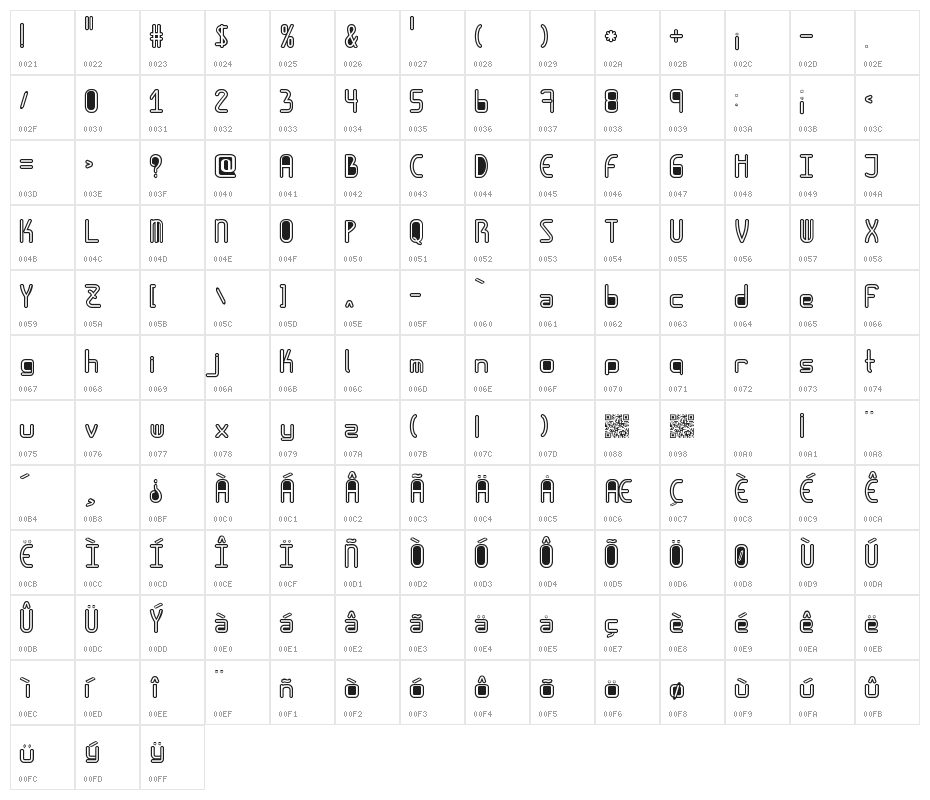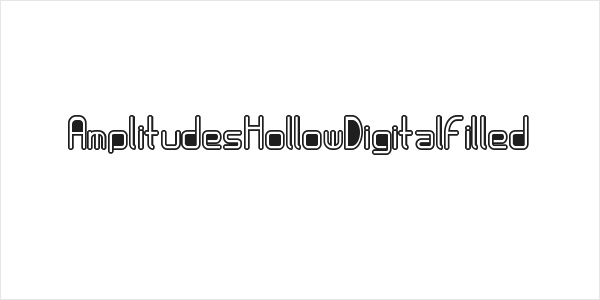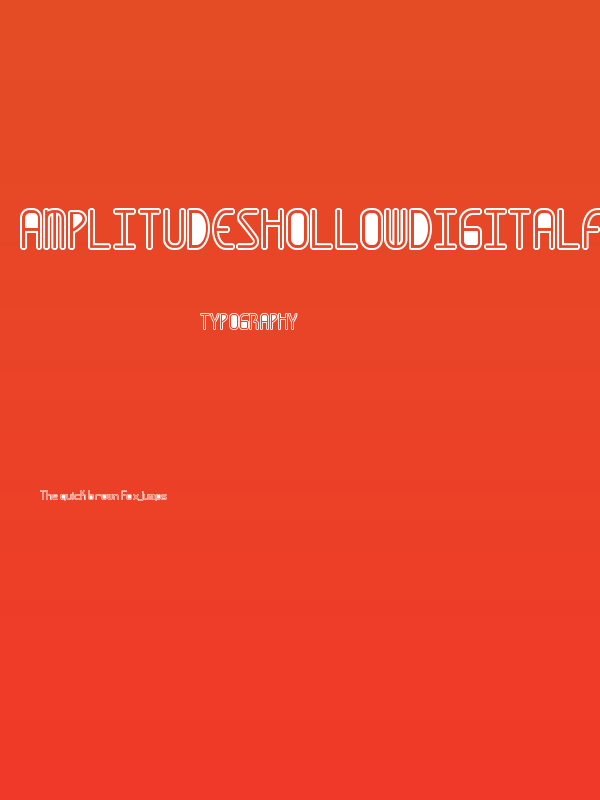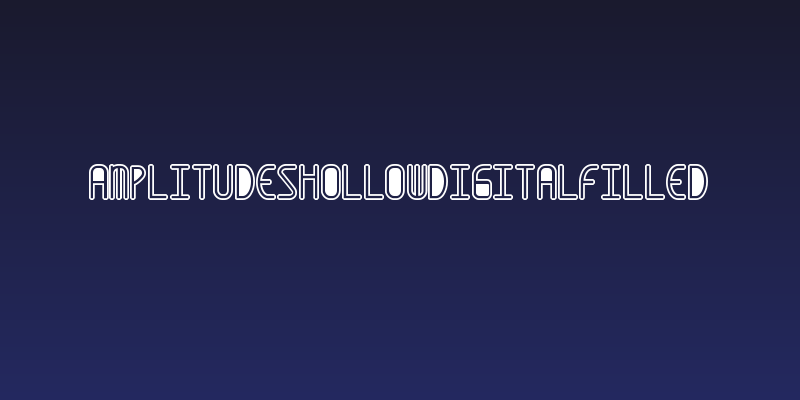
AmplitudesHollowDigitalFilled Font
AmplitudesHollowDigitalFilled Description
This font features a unique, futuristic design with hollow, digital-inspired characters. The uppercase and lowercase letters maintain a consistent geometric style, with rounded edges and a uniform stroke width. The numbers and special characters complement the alphabet with a similar aesthetic, making the font suitable for digital and tech-themed projects. The hollow design gives it a modern and airy feel, while the consistent line thickness ensures readability. This font is ideal for creating a distinctive look in headlines, posters, and branding materials that require a modern, digital touch.
| Proposed Projects | Ideal for tech-themed branding, digital interfaces, futuristic posters, and modern advertising. |